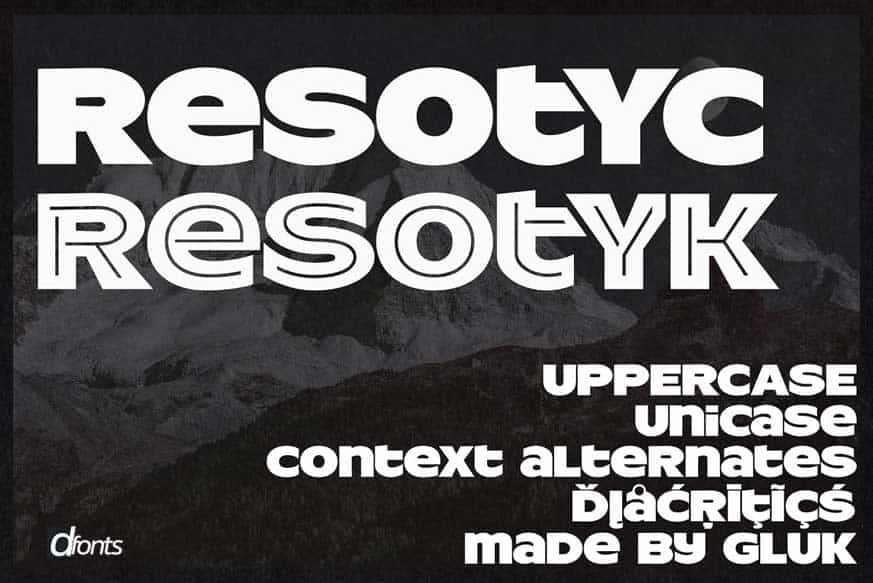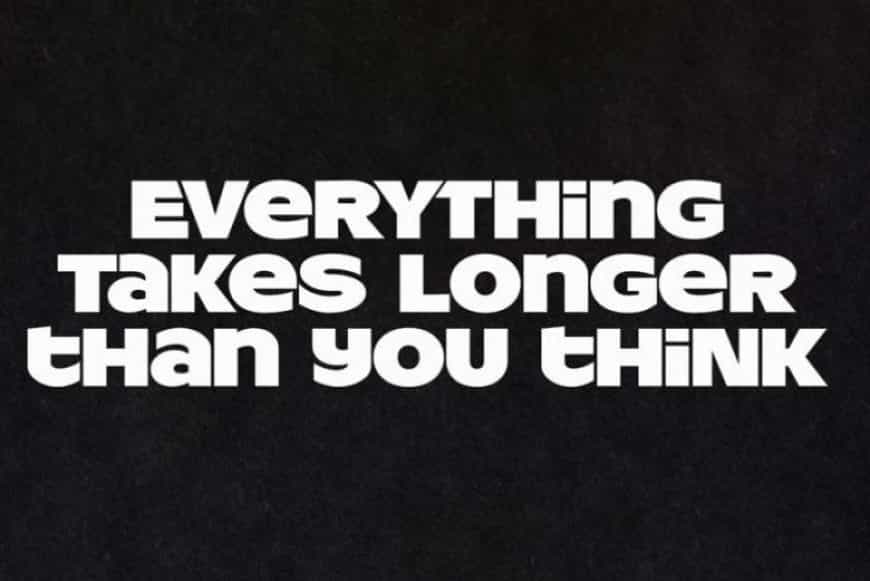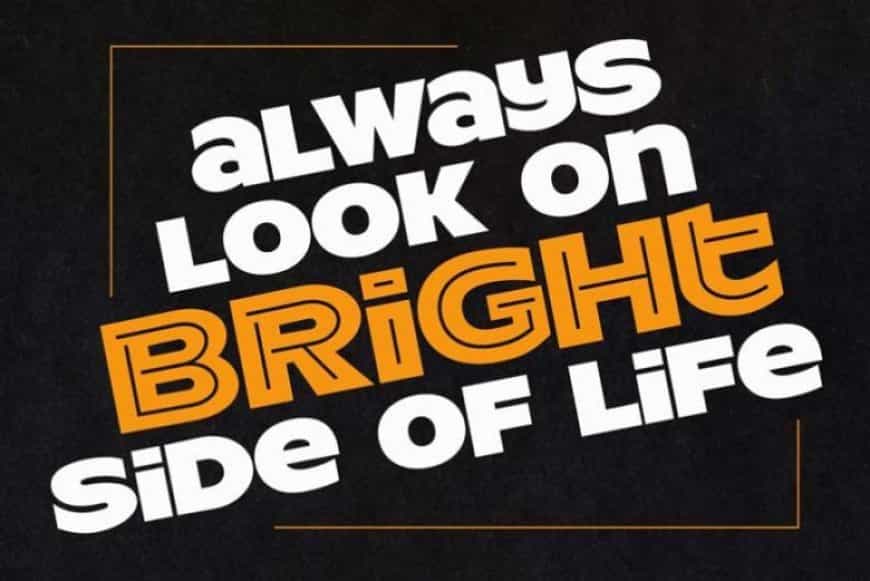
Decorative, extra bold font ResotYc with which you can work in three ways: with capitals and with small letters as the Uni-case letter with a combination of both capital and small letters for a better result. Integrations such as both contextual alternates as well as ligatures present in a font also make adjustments for differences in whitespace area.